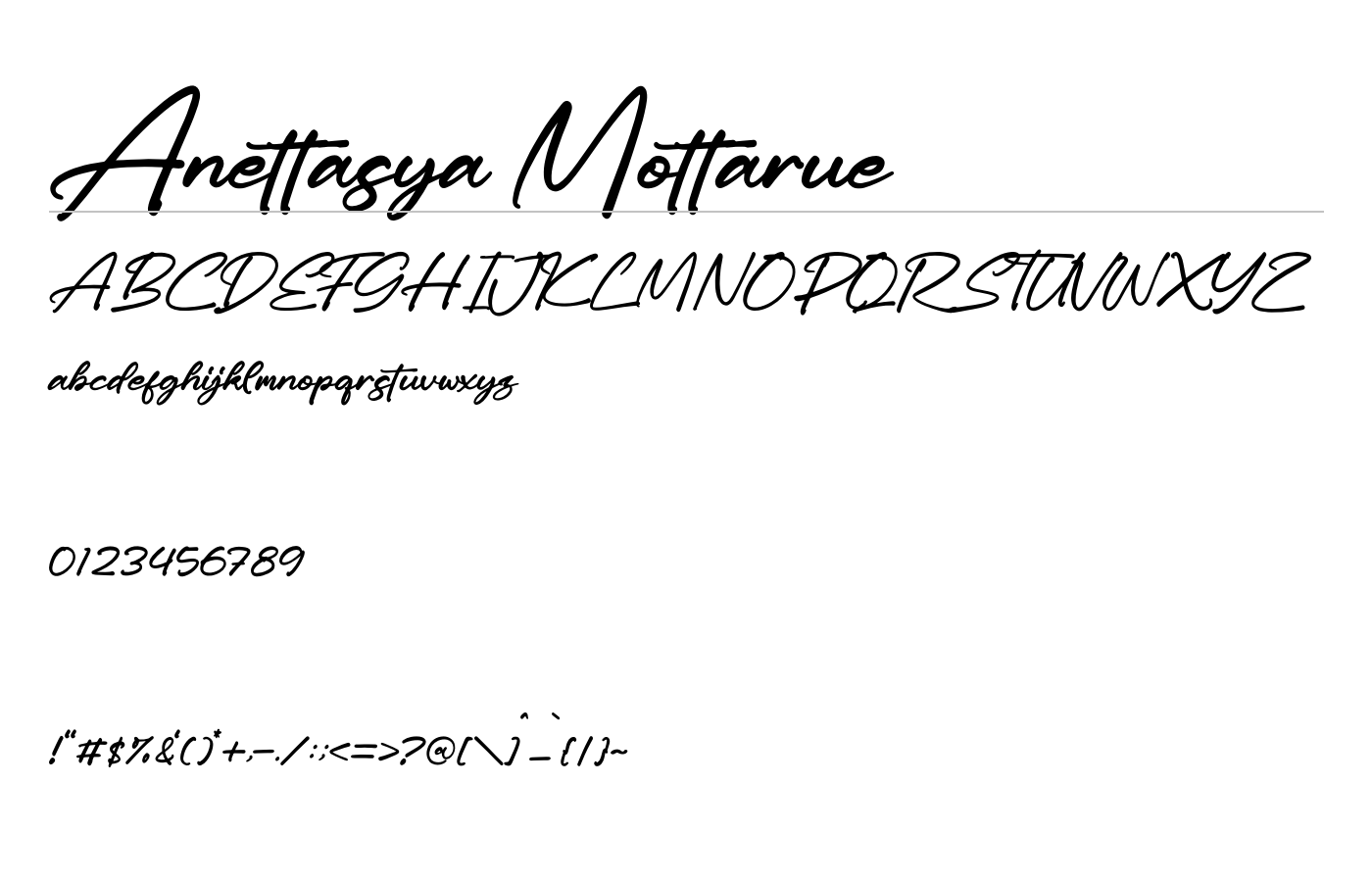
Anettasya Mottarue is a fluid, handwritten script font that exudes elegance and a modern, personal touch. Its smooth, slightly varied stroke weight combined with a natural, flowing style makes it perfect for projects that want to convey warmth and sophistication, such as branding, invitations, or stylish headlines. This font shines in designs where a graceful, yet approachable feel is desired, adding a unique, handcrafted charm.
Anettasya Mottarue Font
About Anettasya Mottarue Font
| Font family | Anettasya Mottarue Font |
| Designer | Nanang Jamaludin |